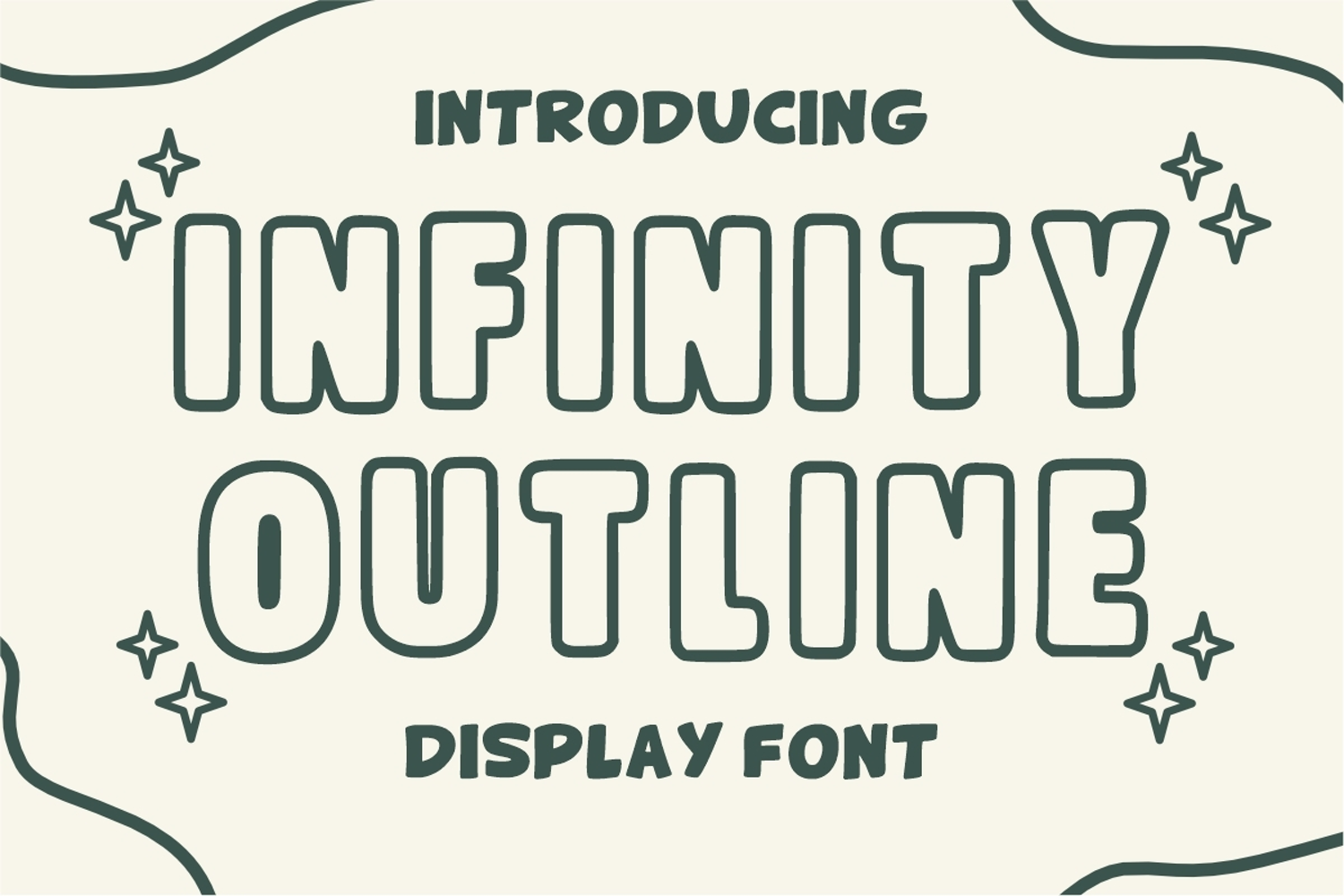
Infinity Outline
Infinity Outline is a sweet and friendly handwritten font. Its natural and unique style makes it incredibly fitting to a large pool of designs. The only limit is your imagination!